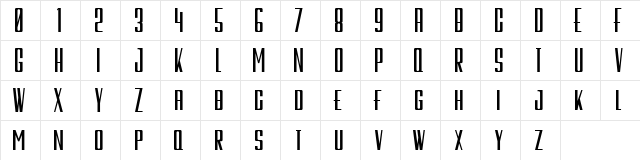
Galah Panjang is a composed and adaptable typeface that performs quietly and consistently across a wide range of design contexts. Its bold stroke weight gives it real presence on the page.